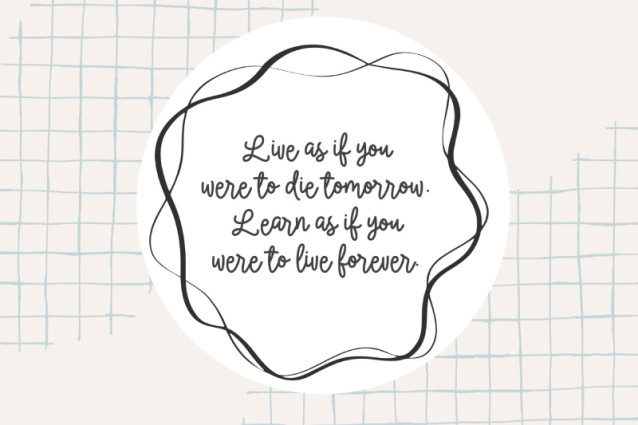
Lemon Garlic Font
Lemon Garlic Font A beautiful and charming handwritten font, perfect for casual branding, quotes, social media, web, greeting cards, trendy prints, fun wedding stationery and many other designs.